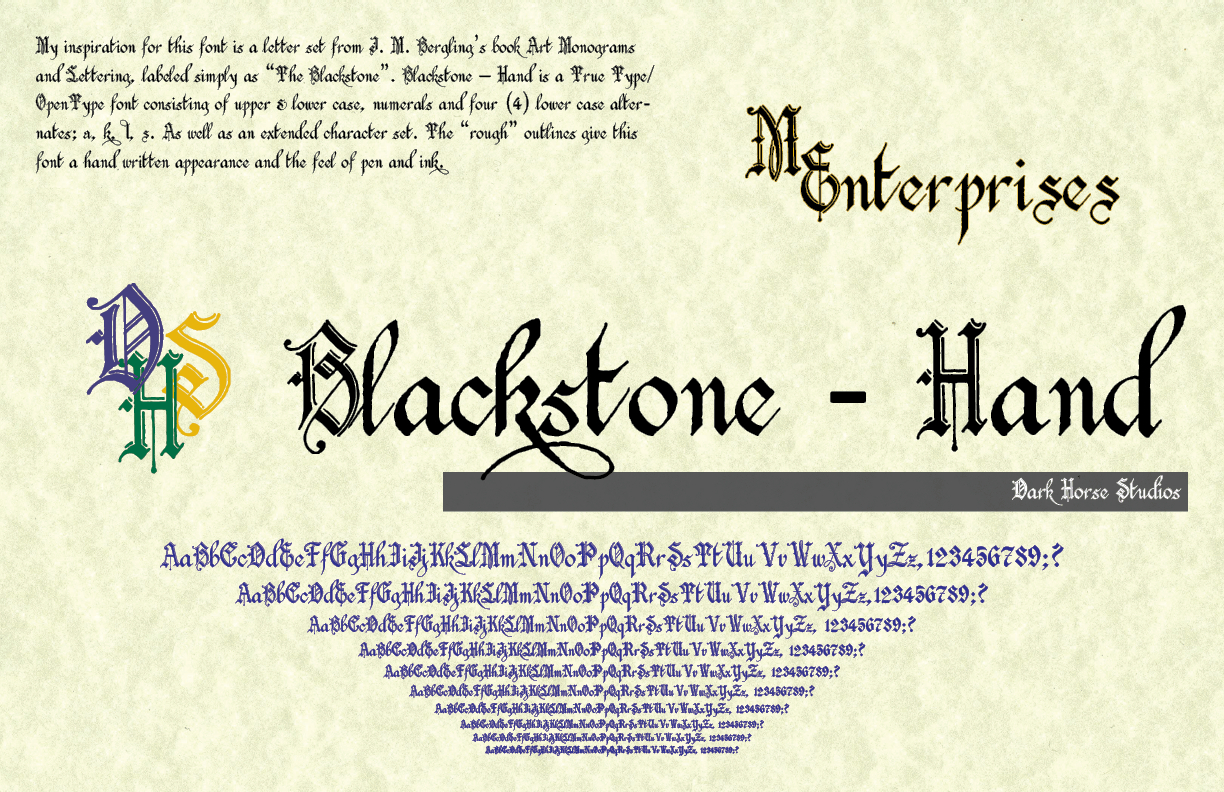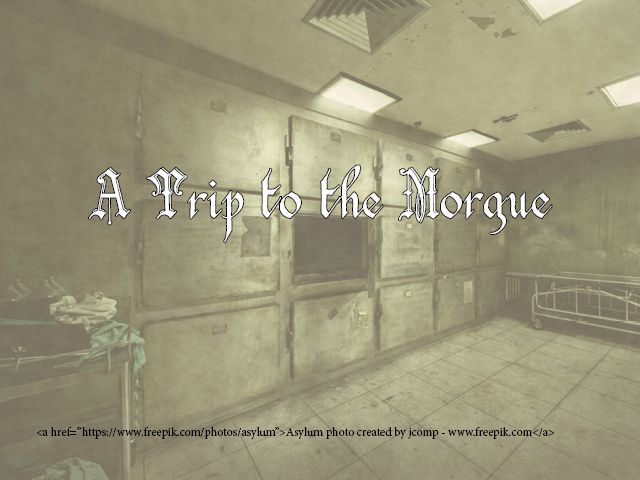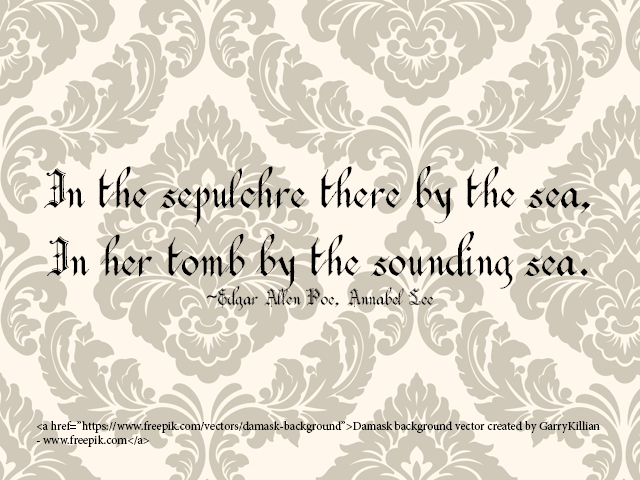
About Blackstone Hand Font
Blackstone Hand is a gothic, medieval-style black letter font. The inspiration for this font is a letter set from J.M. Berling’s book Art Monograms & Lettering. Perfect for that old-world, monogrammed feel.